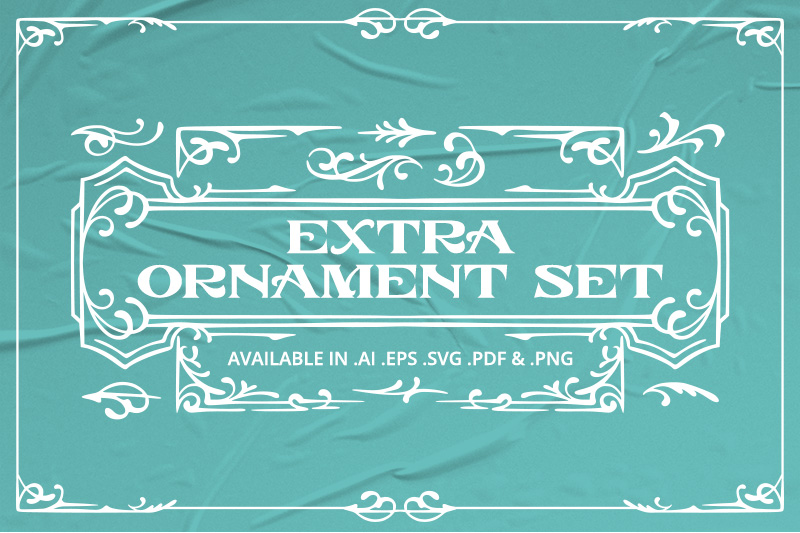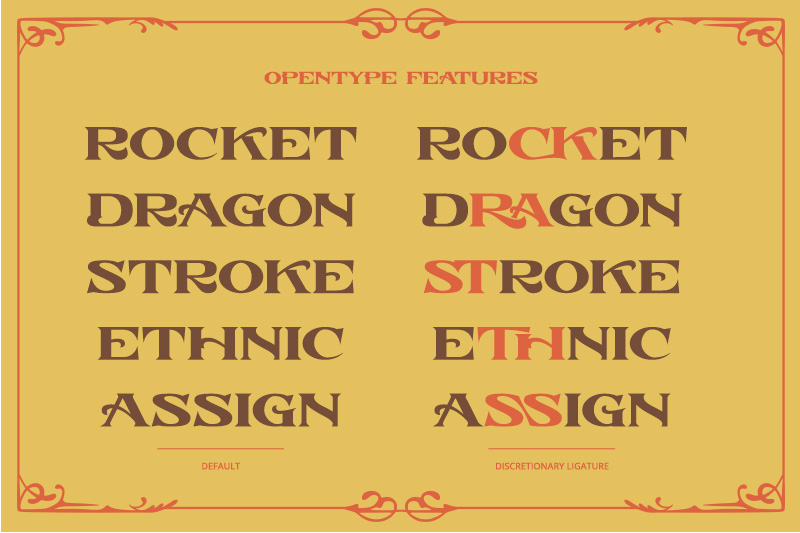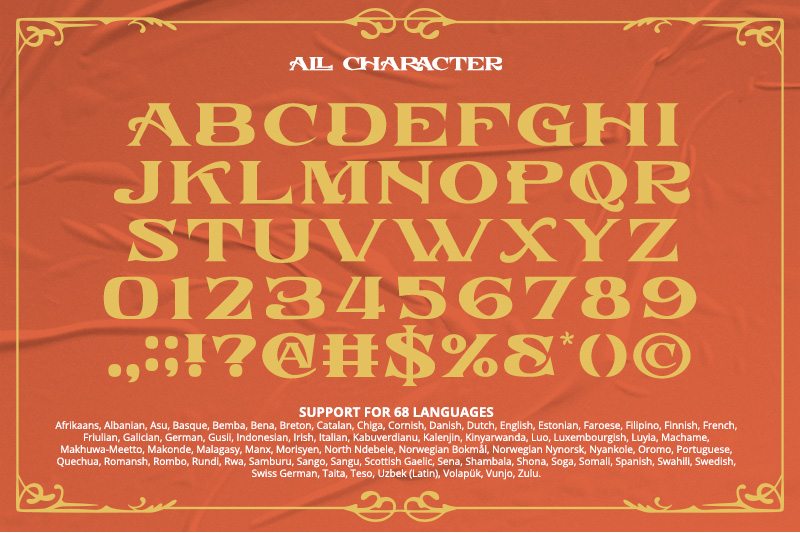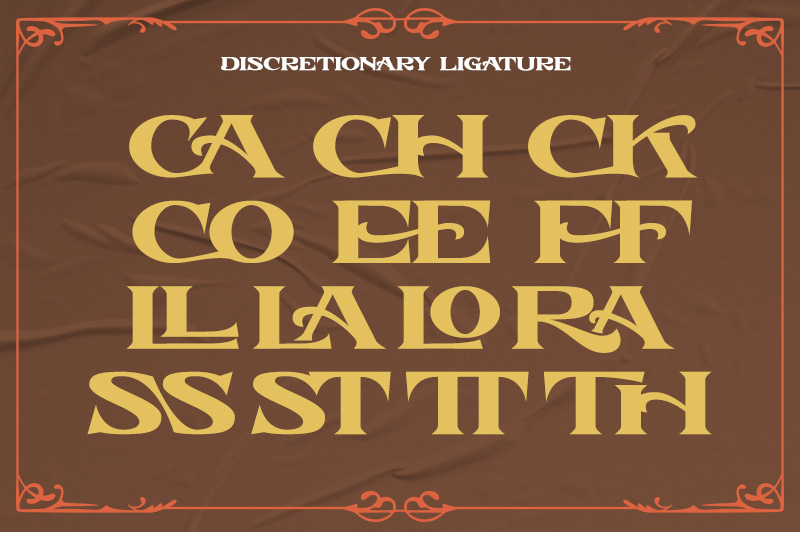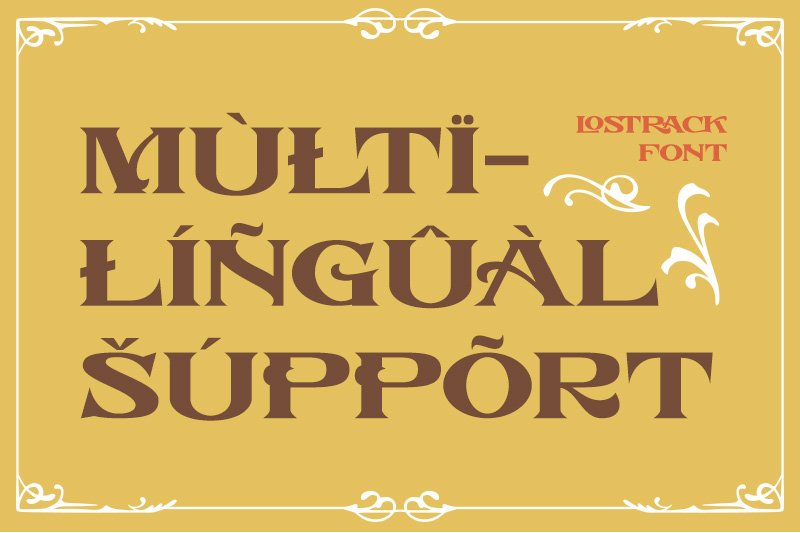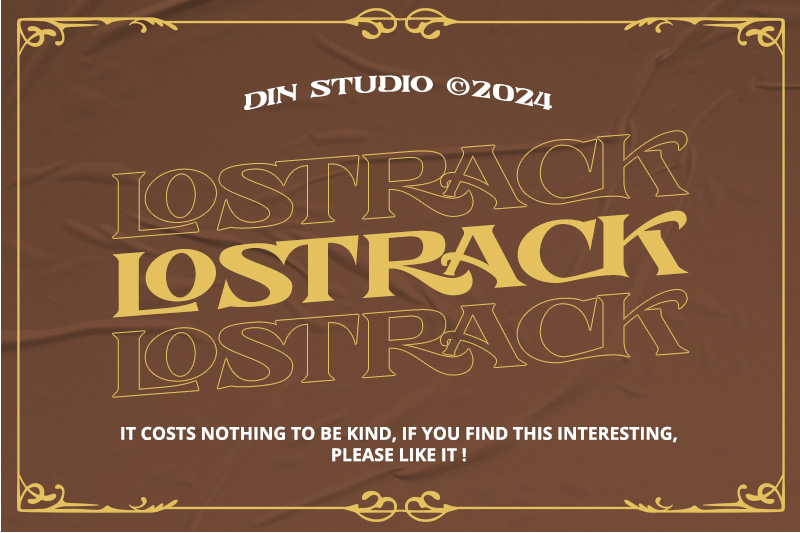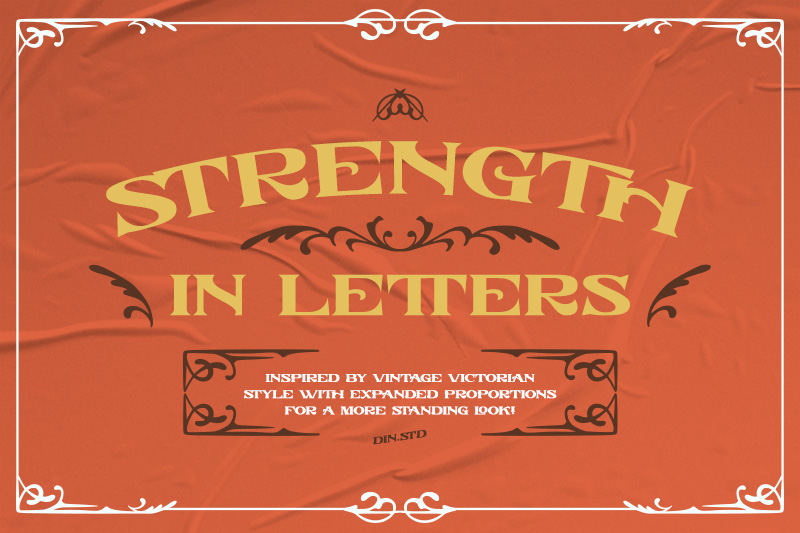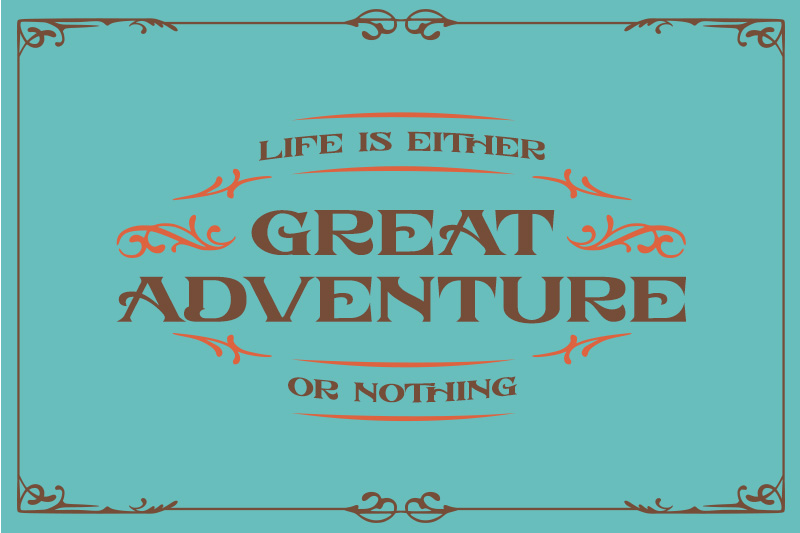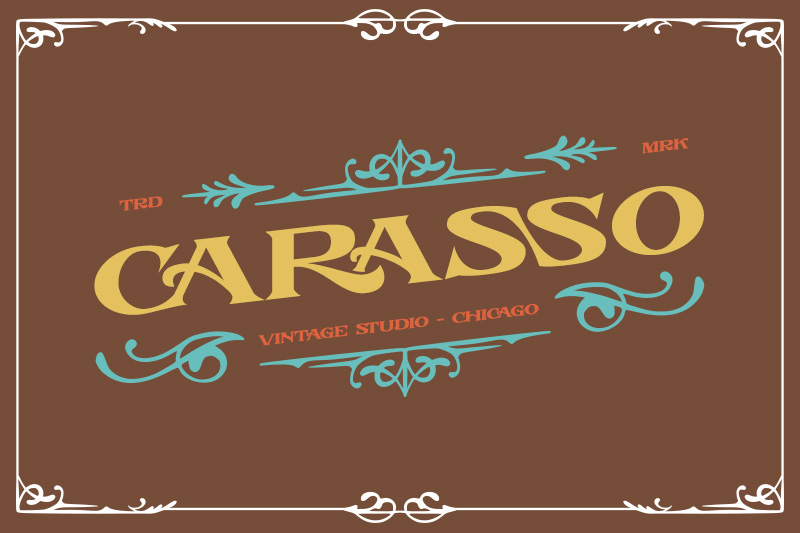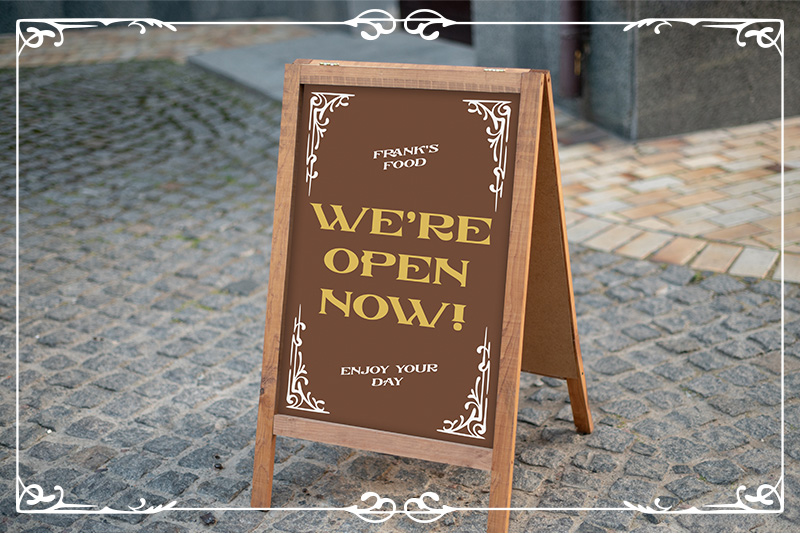
Introducing Lostrack – a bold, vintage-themed display font designed to make a striking impression. Crafted in uppercases and consistent letter proportions that provide a harmonious and balanced look. The font’s very visible contrast adds depth and drama, enhancing its vintage appeal and making each letter stand out. Lostrack brings a powerful and timeless aesthetic that captures the essence of classic design with a modern twist. As an extra, this font gives ornaments. In addition, enjoy the features here.
- Alternates
- Multilingual Supports
Lostrack fits in logos, posters, flyers, branding materials, print media, editorial layouts, and many more designs. Find out more ways to use this font by taking a look at the font preview.